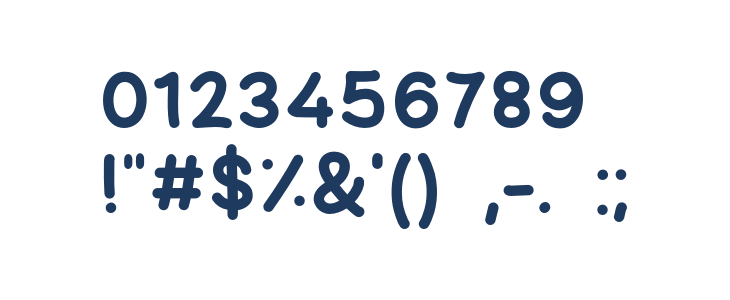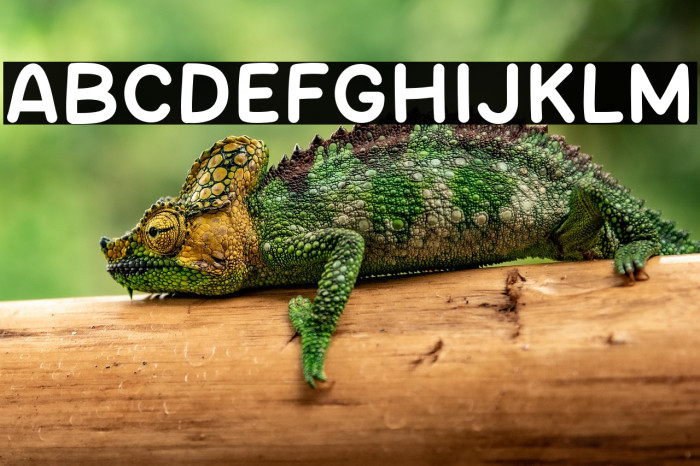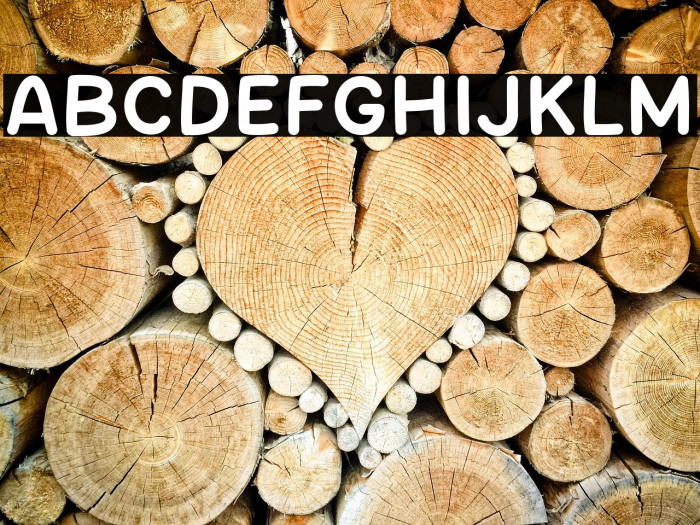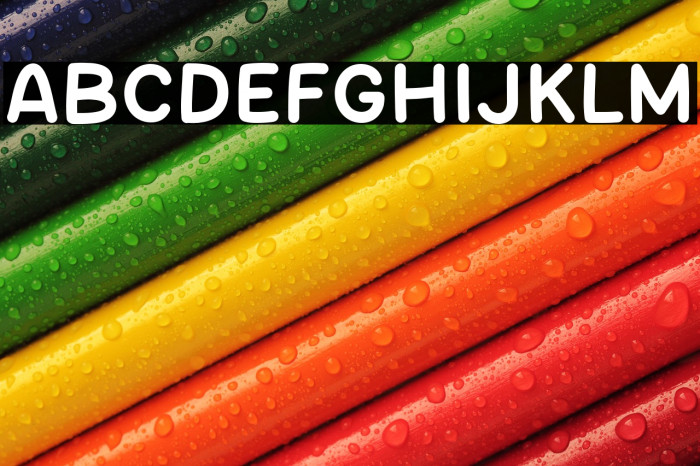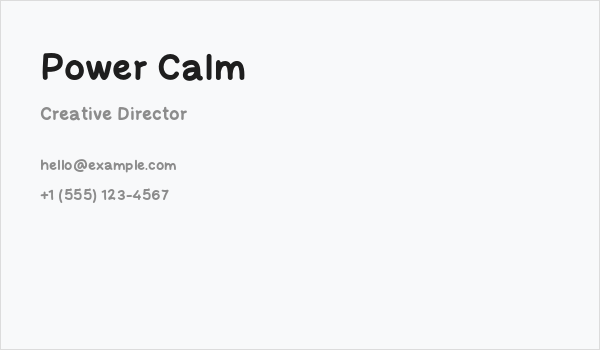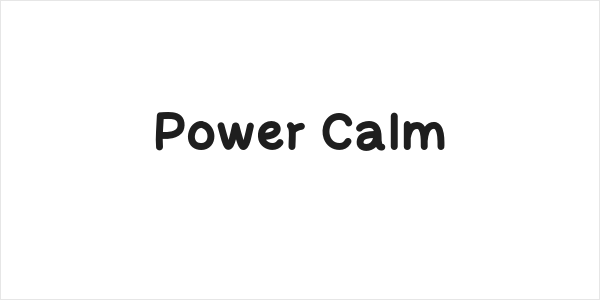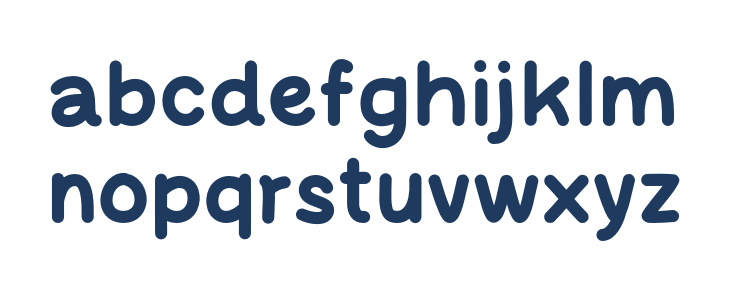
Power Calm Font
| 分类 | Kids |
| 整体风格 | Playful |
| 使用场景 | Logos, Headlines, Posters |
| 推荐项目 | Ideal for children's books, playful branding, casual invitations, and friendly marketing materials. |